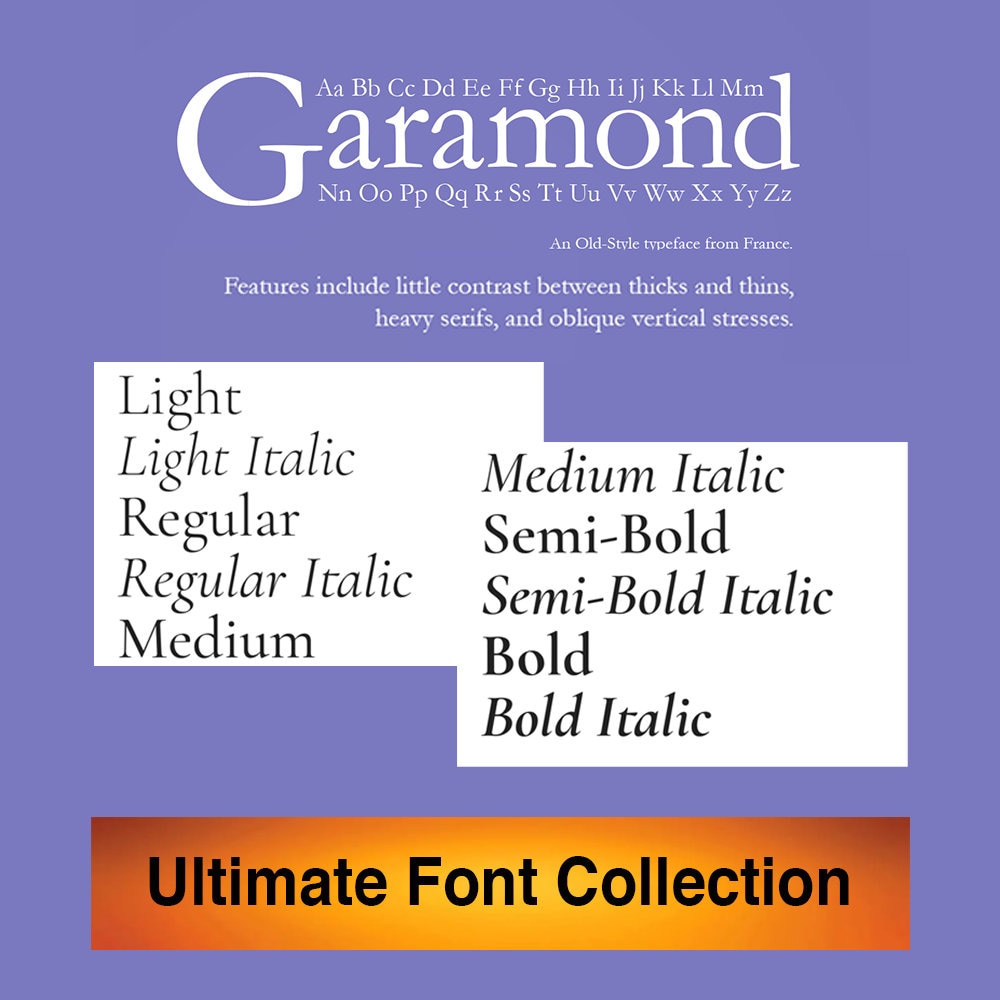
Garamond Font Examples . explore adobe garamond designed by robert slimbach at adobe fonts. A serif typeface with 6 styles, available from adobe fonts. garamond typefaces offer elegance and readability, making them suitable for a wide range of applications. Since it is such a. as discussed earlier, there are many different variations of garamond depending on who made them as well as who inspired them. for example, the font is quite ornamental, making it the perfect typeface for a formal invitation to a wedding or. roman designs of garamond, the most imitated font, was based on a font around 1495 for the venetian printer aldus manutius. Many revivals bearing claude garamond’s name have been released by various foundries (many of them actually being based on.
as discussed earlier, there are many different variations of garamond depending on who made them as well as who inspired them. garamond typefaces offer elegance and readability, making them suitable for a wide range of applications. Many revivals bearing claude garamond’s name have been released by various foundries (many of them actually being based on. explore adobe garamond designed by robert slimbach at adobe fonts. Since it is such a. for example, the font is quite ornamental, making it the perfect typeface for a formal invitation to a wedding or. roman designs of garamond, the most imitated font, was based on a font around 1495 for the venetian printer aldus manutius. A serif typeface with 6 styles, available from adobe fonts.
Garamond Font Examples garamond typefaces offer elegance and readability, making them suitable for a wide range of applications. Many revivals bearing claude garamond’s name have been released by various foundries (many of them actually being based on. Since it is such a. for example, the font is quite ornamental, making it the perfect typeface for a formal invitation to a wedding or. as discussed earlier, there are many different variations of garamond depending on who made them as well as who inspired them. A serif typeface with 6 styles, available from adobe fonts. roman designs of garamond, the most imitated font, was based on a font around 1495 for the venetian printer aldus manutius. explore adobe garamond designed by robert slimbach at adobe fonts. garamond typefaces offer elegance and readability, making them suitable for a wide range of applications.
Garamond Italic Download For Free, View Sample Text, Rating And More Garamond Font Examples Since it is such a. roman designs of garamond, the most imitated font, was based on a font around 1495 for the venetian printer aldus manutius. Many revivals bearing claude garamond’s name have been released by various foundries (many of them actually being based on. for example, the font is quite ornamental, making it the perfect typeface for. Garamond Font Examples.
Garamond Font TYPOG Five Classic typfaces Garamond font, Serif Garamond Font Examples Since it is such a. as discussed earlier, there are many different variations of garamond depending on who made them as well as who inspired them. for example, the font is quite ornamental, making it the perfect typeface for a formal invitation to a wedding or. A serif typeface with 6 styles, available from adobe fonts. garamond. Garamond Font Examples.
Garamond Font Free Download A Digital Designer Musthave Typeface Garamond Font Examples for example, the font is quite ornamental, making it the perfect typeface for a formal invitation to a wedding or. as discussed earlier, there are many different variations of garamond depending on who made them as well as who inspired them. Many revivals bearing claude garamond’s name have been released by various foundries (many of them actually being. Garamond Font Examples.
Why We Still Use The 16th Century Garamond Font Today HipFonts Garamond Font Examples Many revivals bearing claude garamond’s name have been released by various foundries (many of them actually being based on. explore adobe garamond designed by robert slimbach at adobe fonts. garamond typefaces offer elegance and readability, making them suitable for a wide range of applications. roman designs of garamond, the most imitated font, was based on a font. Garamond Font Examples.
EB Garamond Bold free Font What Font Is Garamond Font Examples explore adobe garamond designed by robert slimbach at adobe fonts. as discussed earlier, there are many different variations of garamond depending on who made them as well as who inspired them. for example, the font is quite ornamental, making it the perfect typeface for a formal invitation to a wedding or. roman designs of garamond, the. Garamond Font Examples.
Cormorant Garamond Font 1001 Free Fonts Garamond Font Examples garamond typefaces offer elegance and readability, making them suitable for a wide range of applications. for example, the font is quite ornamental, making it the perfect typeface for a formal invitation to a wedding or. roman designs of garamond, the most imitated font, was based on a font around 1495 for the venetian printer aldus manutius. . Garamond Font Examples.
Garamond Bold free Font What Font Is Garamond Font Examples as discussed earlier, there are many different variations of garamond depending on who made them as well as who inspired them. for example, the font is quite ornamental, making it the perfect typeface for a formal invitation to a wedding or. Many revivals bearing claude garamond’s name have been released by various foundries (many of them actually being. Garamond Font Examples.
Garamond Light Font Download Garamond Font Examples for example, the font is quite ornamental, making it the perfect typeface for a formal invitation to a wedding or. Many revivals bearing claude garamond’s name have been released by various foundries (many of them actually being based on. A serif typeface with 6 styles, available from adobe fonts. Since it is such a. explore adobe garamond designed. Garamond Font Examples.
Garamond Font Download Free for Desktop & font Garamond Font Examples explore adobe garamond designed by robert slimbach at adobe fonts. A serif typeface with 6 styles, available from adobe fonts. Since it is such a. roman designs of garamond, the most imitated font, was based on a font around 1495 for the venetian printer aldus manutius. for example, the font is quite ornamental, making it the perfect. Garamond Font Examples.
Garamond Regular truetype font Garamond Font Examples explore adobe garamond designed by robert slimbach at adobe fonts. as discussed earlier, there are many different variations of garamond depending on who made them as well as who inspired them. Many revivals bearing claude garamond’s name have been released by various foundries (many of them actually being based on. for example, the font is quite ornamental,. Garamond Font Examples.
From www.stimulusadvertising.com
Garamond Google Font Pairing Stimulus Advertising Lynchburg Garamond Font Examples as discussed earlier, there are many different variations of garamond depending on who made them as well as who inspired them. roman designs of garamond, the most imitated font, was based on a font around 1495 for the venetian printer aldus manutius. Many revivals bearing claude garamond’s name have been released by various foundries (many of them actually. Garamond Font Examples.
Garamond Font download free Garamond Font Examples A serif typeface with 6 styles, available from adobe fonts. explore adobe garamond designed by robert slimbach at adobe fonts. for example, the font is quite ornamental, making it the perfect typeface for a formal invitation to a wedding or. Many revivals bearing claude garamond’s name have been released by various foundries (many of them actually being based. Garamond Font Examples.
Adobe Garamond Font Free Download Garamond Font Examples roman designs of garamond, the most imitated font, was based on a font around 1495 for the venetian printer aldus manutius. as discussed earlier, there are many different variations of garamond depending on who made them as well as who inspired them. Many revivals bearing claude garamond’s name have been released by various foundries (many of them actually. Garamond Font Examples.
EB Garamond Font Examples A serif typeface with 6 styles, available from adobe fonts. as discussed earlier, there are many different variations of garamond depending on who made them as well as who inspired them. garamond typefaces offer elegance and readability, making them suitable for a wide range of applications. Since it is such a. Many revivals bearing claude garamond’s name have. Garamond Font Examples.
EB Garamond font Garamond Font Examples for example, the font is quite ornamental, making it the perfect typeface for a formal invitation to a wedding or. garamond typefaces offer elegance and readability, making them suitable for a wide range of applications. Since it is such a. A serif typeface with 6 styles, available from adobe fonts. as discussed earlier, there are many different. Garamond Font Examples.
From www.stimulusadvertising.com
Garamond Google Font Pairing Stimulus Advertising Lynchburg Garamond Font Examples Many revivals bearing claude garamond’s name have been released by various foundries (many of them actually being based on. for example, the font is quite ornamental, making it the perfect typeface for a formal invitation to a wedding or. explore adobe garamond designed by robert slimbach at adobe fonts. as discussed earlier, there are many different variations. Garamond Font Examples.
Garamond Pro Font Garamond Font Examples Many revivals bearing claude garamond’s name have been released by various foundries (many of them actually being based on. for example, the font is quite ornamental, making it the perfect typeface for a formal invitation to a wedding or. as discussed earlier, there are many different variations of garamond depending on who made them as well as who. Garamond Font Examples.
Apple Garamond free Font What Font Is Garamond Font Examples garamond typefaces offer elegance and readability, making them suitable for a wide range of applications. A serif typeface with 6 styles, available from adobe fonts. roman designs of garamond, the most imitated font, was based on a font around 1495 for the venetian printer aldus manutius. Since it is such a. for example, the font is quite. Garamond Font Examples.
From qlerobrains.weebly.com
Garamond font qlerobrains Garamond Font Examples Many revivals bearing claude garamond’s name have been released by various foundries (many of them actually being based on. roman designs of garamond, the most imitated font, was based on a font around 1495 for the venetian printer aldus manutius. garamond typefaces offer elegance and readability, making them suitable for a wide range of applications. explore adobe. Garamond Font Examples.
Garamond Typeface Poster on Behance Garamond Font Examples roman designs of garamond, the most imitated font, was based on a font around 1495 for the venetian printer aldus manutius. explore adobe garamond designed by robert slimbach at adobe fonts. Since it is such a. A serif typeface with 6 styles, available from adobe fonts. as discussed earlier, there are many different variations of garamond depending. Garamond Font Examples.
From www.creativosonline.org
Qué es Garamond historia, origen y evolución de la tipografía Garamond Font Examples roman designs of garamond, the most imitated font, was based on a font around 1495 for the venetian printer aldus manutius. Since it is such a. explore adobe garamond designed by robert slimbach at adobe fonts. as discussed earlier, there are many different variations of garamond depending on who made them as well as who inspired them.. Garamond Font Examples.
Garamond Bold Italic Download For Free, View Sample Text, Rating And Garamond Font Examples explore adobe garamond designed by robert slimbach at adobe fonts. Many revivals bearing claude garamond’s name have been released by various foundries (many of them actually being based on. Since it is such a. roman designs of garamond, the most imitated font, was based on a font around 1495 for the venetian printer aldus manutius. as discussed. Garamond Font Examples.
EB Garamond SmallCaps 08 Regular free Font What Font Is Garamond Font Examples Since it is such a. A serif typeface with 6 styles, available from adobe fonts. roman designs of garamond, the most imitated font, was based on a font around 1495 for the venetian printer aldus manutius. for example, the font is quite ornamental, making it the perfect typeface for a formal invitation to a wedding or. explore. Garamond Font Examples.
From fonts.ilovetypography.com
LDN Garamond Fonts I Love Typography Garamond Font Examples as discussed earlier, there are many different variations of garamond depending on who made them as well as who inspired them. Many revivals bearing claude garamond’s name have been released by various foundries (many of them actually being based on. garamond typefaces offer elegance and readability, making them suitable for a wide range of applications. for example,. Garamond Font Examples.
Itc Garamond Font Examples garamond typefaces offer elegance and readability, making them suitable for a wide range of applications. for example, the font is quite ornamental, making it the perfect typeface for a formal invitation to a wedding or. roman designs of garamond, the most imitated font, was based on a font around 1495 for the venetian printer aldus manutius. Since. Garamond Font Examples.
Garamond Regular truetype font Garamond Font Examples for example, the font is quite ornamental, making it the perfect typeface for a formal invitation to a wedding or. A serif typeface with 6 styles, available from adobe fonts. Many revivals bearing claude garamond’s name have been released by various foundries (many of them actually being based on. Since it is such a. roman designs of garamond,. Garamond Font Examples.
Garamond Wikiwand Garamond font, Lettering, Book print Garamond Font Examples as discussed earlier, there are many different variations of garamond depending on who made them as well as who inspired them. roman designs of garamond, the most imitated font, was based on a font around 1495 for the venetian printer aldus manutius. for example, the font is quite ornamental, making it the perfect typeface for a formal. Garamond Font Examples.
Claude Garamond Fonte tipográfica Adobe Garamond Pro Lettering Garamond Font Examples roman designs of garamond, the most imitated font, was based on a font around 1495 for the venetian printer aldus manutius. Many revivals bearing claude garamond’s name have been released by various foundries (many of them actually being based on. garamond typefaces offer elegance and readability, making them suitable for a wide range of applications. Since it is. Garamond Font Examples.
Celtic Garamond the 2nd free Font What Font Is Garamond Font Examples Since it is such a. A serif typeface with 6 styles, available from adobe fonts. for example, the font is quite ornamental, making it the perfect typeface for a formal invitation to a wedding or. garamond typefaces offer elegance and readability, making them suitable for a wide range of applications. Many revivals bearing claude garamond’s name have been. Garamond Font Examples.